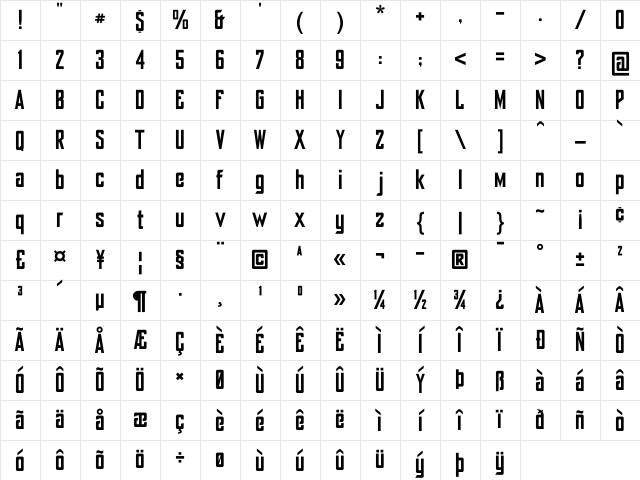
yorkbailehill Regular Free Font
yorkbailehill Regular
Design Context for yorkbailehill
yorkbailehill is a composed and adaptable typeface that performs quietly and consistently across a wide range of design contexts.